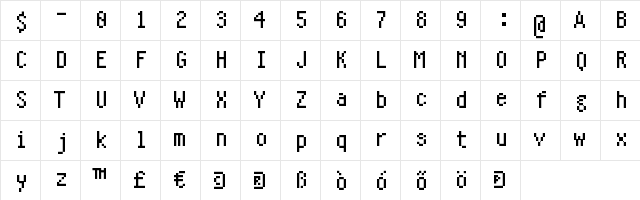
PragmataFlash11 Regular
Design Context for PragmataFlash11 Typeface
PragmataFlash11 takes a measured approach to typography — its balanced proportions and neutral character make it a reliable workhorse for both digital and print work.